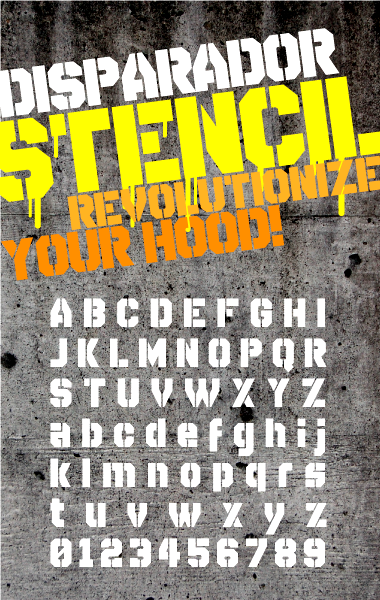
one of my uglier samples, but i wanted to have it done before breakfast, and i'm hungry!
Disparador Stencil was used for the website header of Romford-based Ab Salute Gym. Very nicely fits the context, and I even earned some money from it.:)
By the way: I'll try to get back to publishing new fonts as soon as my schedule allows it... Have some stuff in my private folder, but nothing quite finished yet. Just so you don't think my only contributions in the future are going to be links to how my old creations are used. ;)
A robust stencil face with narrow (mostly) vertical gaps. This is a nice addition to your Disparador family. I very much like the runny paint effect on your demo pic. 10/10